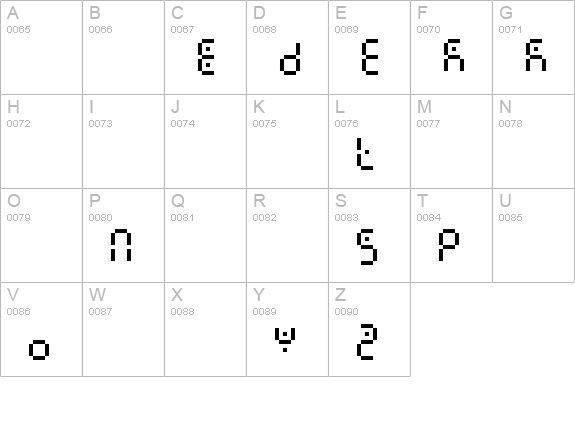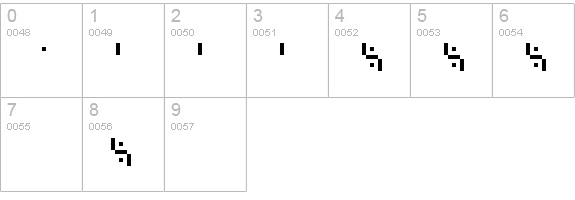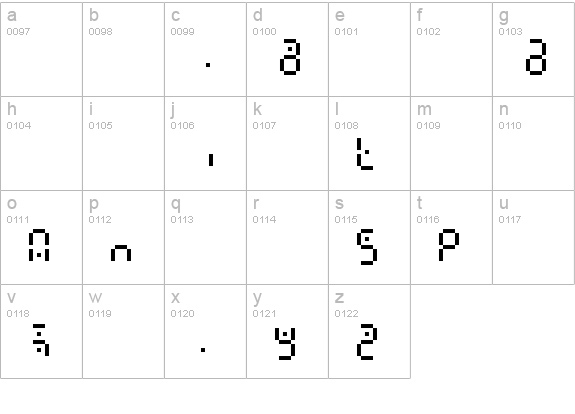
Introducing Readout-OneFrontExpert, a stunning font that brings a touch of elegance and sophistication to any project. With its sleek and modern design, this font is perfect for creating eye-catching headlines, stylish logos, and engaging marketing materials. Readout-OneFrontExpert is not only visually appealing, but it also offers a high level of readability, making it ideal for both print and digital media. Its clean lines and balanced proportions ensure that every letter is clear and easy to read, even at small sizes. One of the best features of Readout-OneFrontExpert is that it is freely available to download at FontsMarket.com. Whether you are a professional designer or a hobbyist, you can enjoy the benefits of this exceptional font without any cost. This means that you can use it in your personal and commercial projects without worrying about licensing fees. The versatility of Readout-OneFrontExpert is also worth mentioning. It effortlessly adapts to various design styles, from minimalist to bold and vibrant. Its wide range of characters and punctuation marks allow for endless creative possibilities, ensuring that your designs stand out from the crowd. In conclusion, Readout-OneFrontExpert is a must-have font for anyone looking to elevate their designs to the next level. Its timeless appeal, combined with its high readability and availability as a free download on FontsMarket.com, makes it an excellent choice for both experienced designers and beginners alike. So why wait? Download Readout-OneFrontExpert today and let your creativity soar!